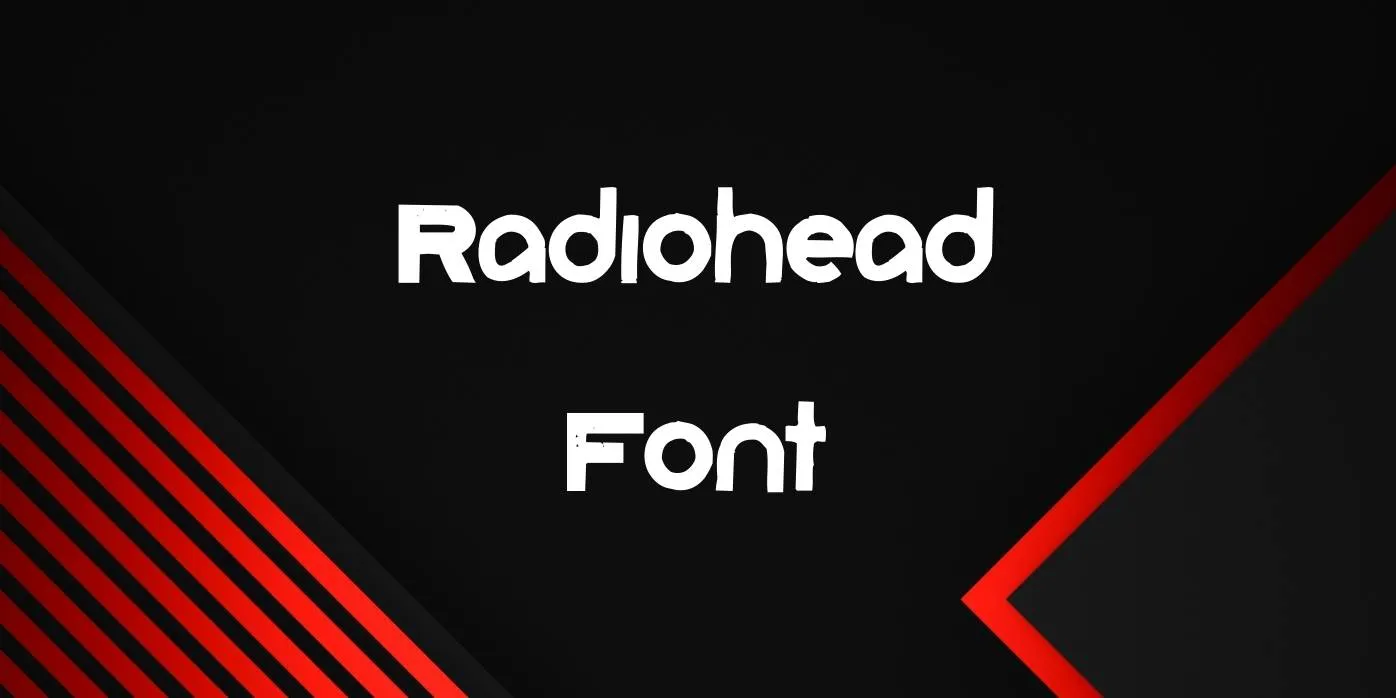
Radiohead Font
Radiohead Font is a font used by the British rock band Radiohead. The font was designed by Stanley Donwood, who has created all of the band’s album artwork since 1994. The font is named after the band’s song ” Paranoid Android “, which was released as a single in 1997. The Font is a sans serif typeface with a distressed, grunge appearance.
It is available in two weights, light and heavy. You can also make special designs with the pairing of other script typefaces like futura oblique font. The heavyweight is the more commonly used weight and is often used for the band’s album artwork. The glyph of this font is based on the distorted and stretched letterforms seen in the artwork for the band’s album “Kid A”.
The typeface is also used on the band’s website and has been used on a number of other websites and publications.